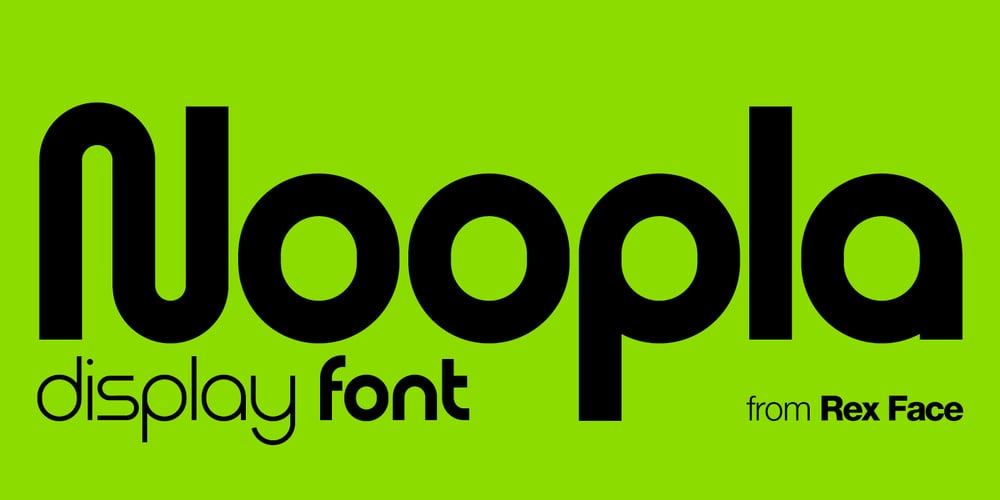
Noopla Font Family was designed by Tim Rex and published by Rex Face. Noopla contains 4 styles and family package options. Noopla is a modern sans-serif display font. Key characters are formed with sweeping and flowing lines, resulting in some really interesting word forms. With four weights, Noopla is great for branding, headlines, signage, social media and more.